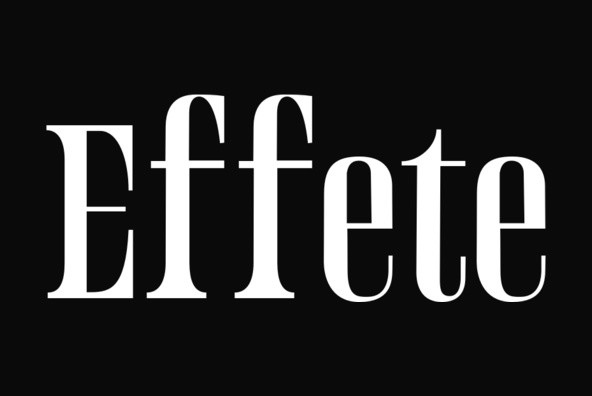
Effete Font
Effete Font is perfect for refined cultural branding, intellectual discourse materials, sophisticated academic publications, elite literary projects, aristocratic event invitations, exclusive salon communications, cultivated lifestyle marketing, and distinguished advertising campaigns. This cultivated typeface works beautifully in both digital applications and print media where intellectual sophistication and refined sensibilities are essential design considerations.
What makes Effete Font so exciting is its exquisite interpretation of cultural refinement and intellectual sophistication through delicately crafted letterforms that embody the same cultivated sensibilities and aesthetic discernment found in elite cultural circles and scholarly pursuits. The font features refined characters with aristocratic proportions, cultivated curves, and sophisticated details that communicate intellectual superiority, aesthetic refinement, and the rarefied taste that defines truly cultured environments. Its distinguished personality and cultural heritage make it ideal for organizations seeking to establish intellectual authority while appealing to educated audiences who value sophisticated discourse and refined cultural experiences.
The Effete Font family includes multiple weight variations with different refinement levels, along with cultivated alternates and intellectual ornamental elements. Each style maintains the typeface's sophisticated character while offering comprehensive character sets including refined numerals, cultured punctuation marks, and special symbols designed to enhance intellectual communications and elite branding efforts across various sophisticated contexts.
This extraordinary typeface represents the perfect marriage of intellectual tradition and contemporary design functionality for cultural and educational industries. Whether you're developing academic institution identities, creating literary publication materials, or designing cultural event promotions, Effete Font Free Download provides the cultivated sophistication and versatility needed to connect with intellectually discerning audiences. The font's refined appeal makes it particularly effective for universities, cultural institutions, literary publishers, and organizations celebrating the pursuit of knowledge and aesthetic refinement.
The carefully crafted sophisticated details and optimized intellectual performance in Effete Font ensure both cultural authenticity and clear communication across all refined applications. Its cultivated presence makes it perfect for intellectual branding, sophisticated marketing materials, and cultured communications where its full refined character can create meaningful connections with audiences who appreciate intellectual discourse, cultural sophistication, and the elevated pursuit of aesthetic and intellectual excellence.